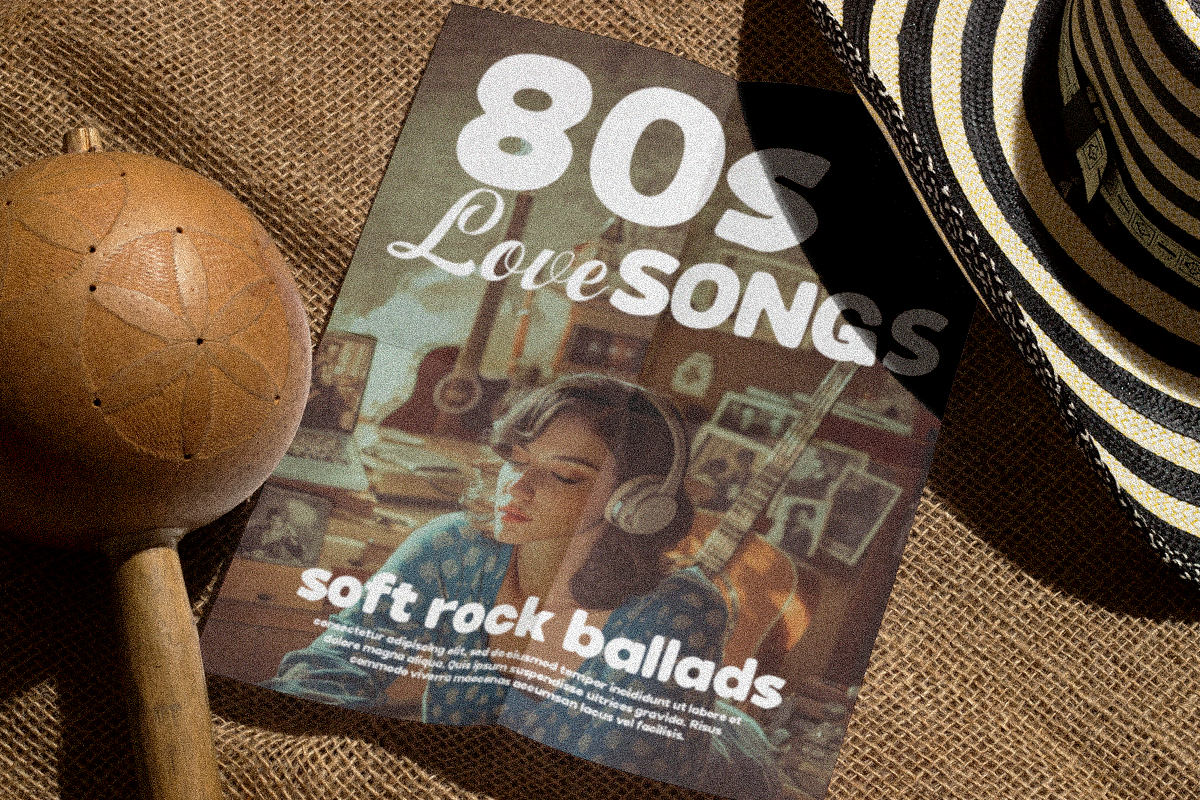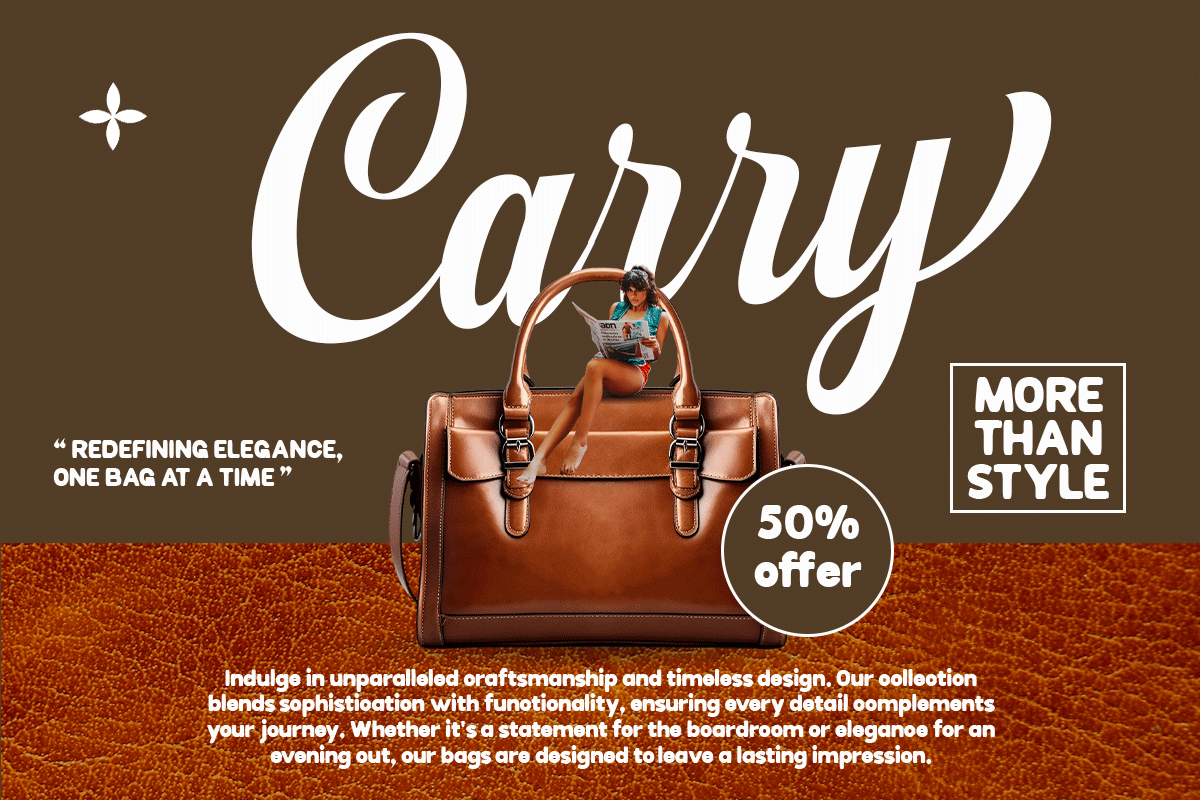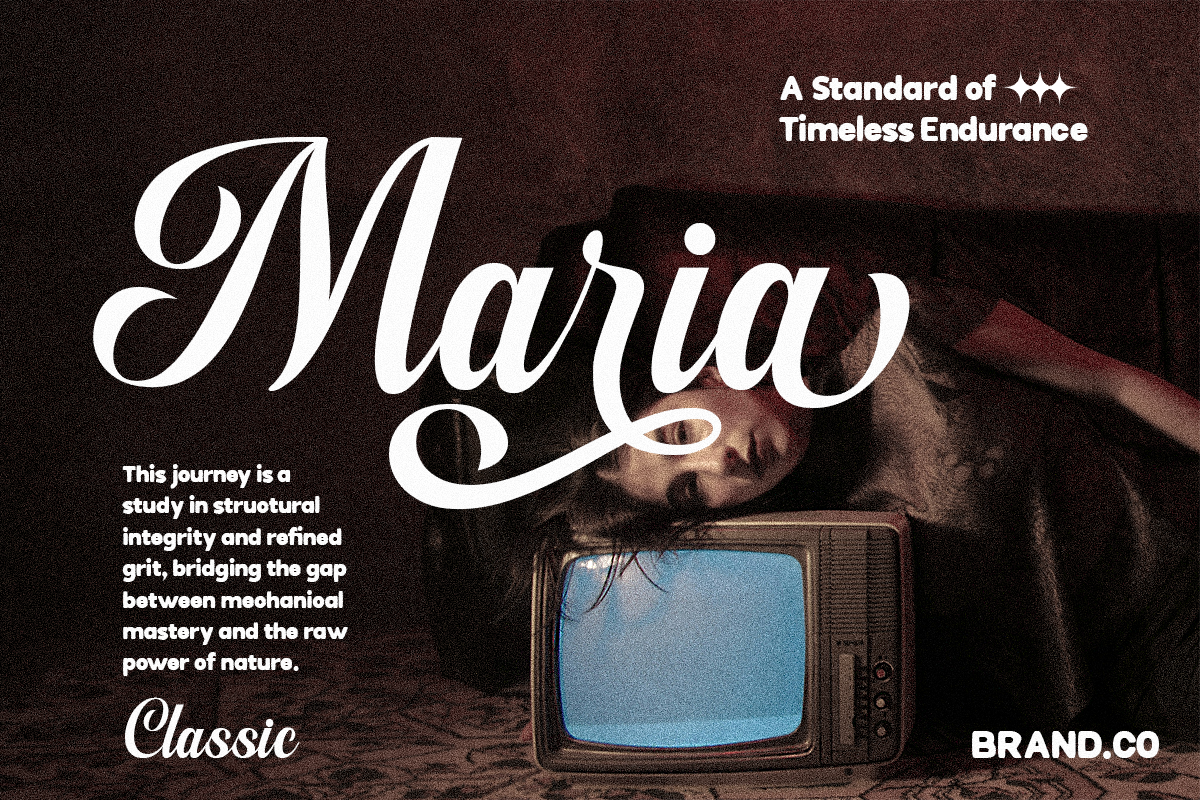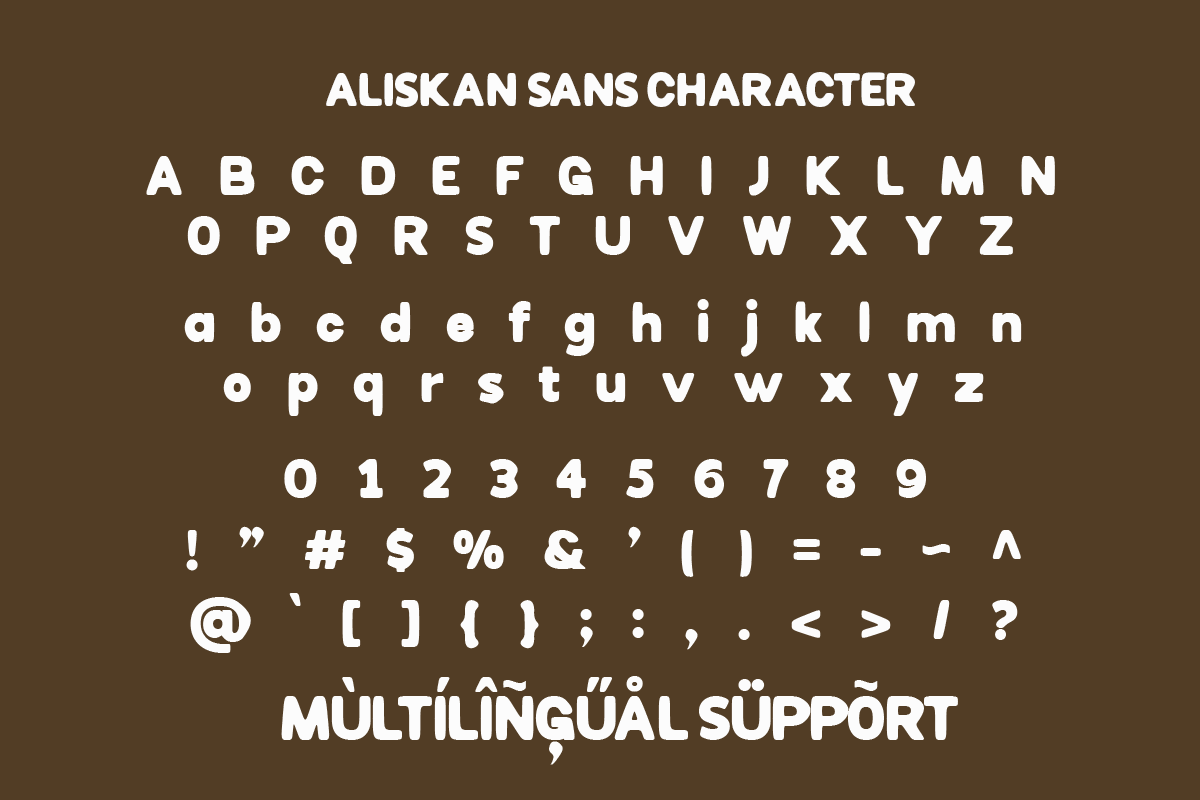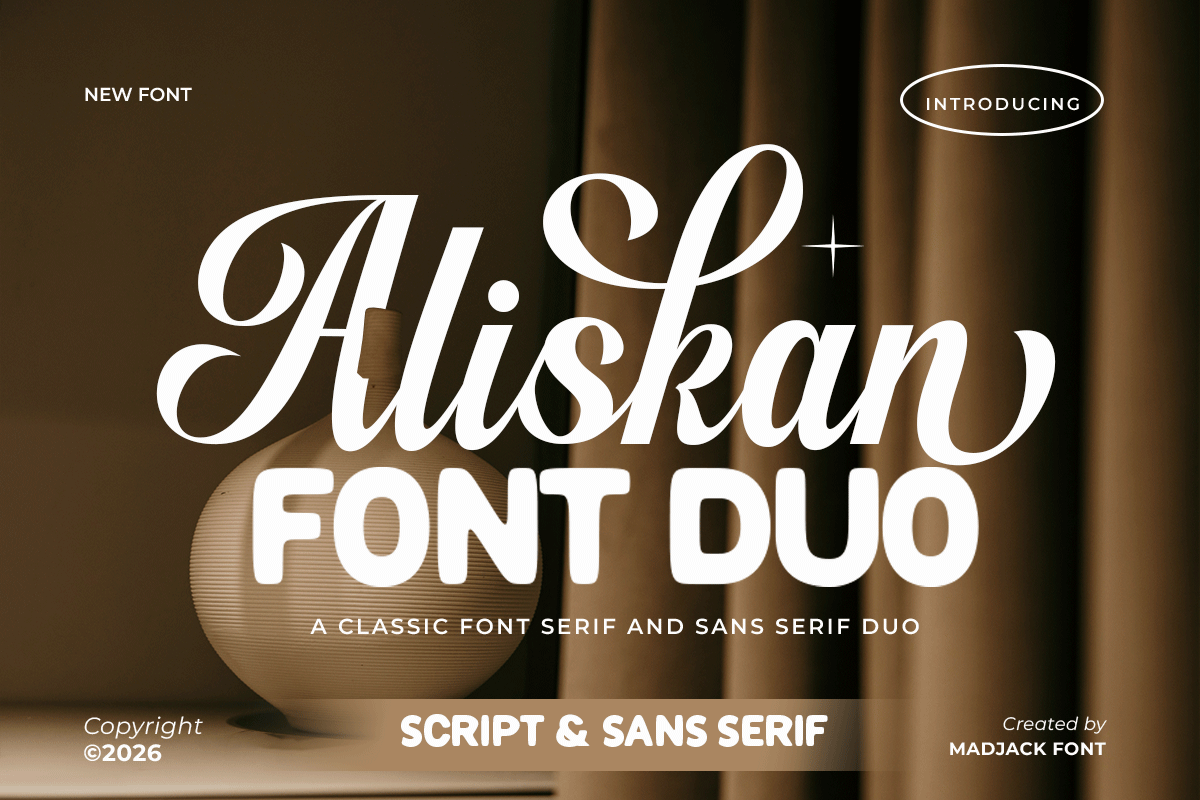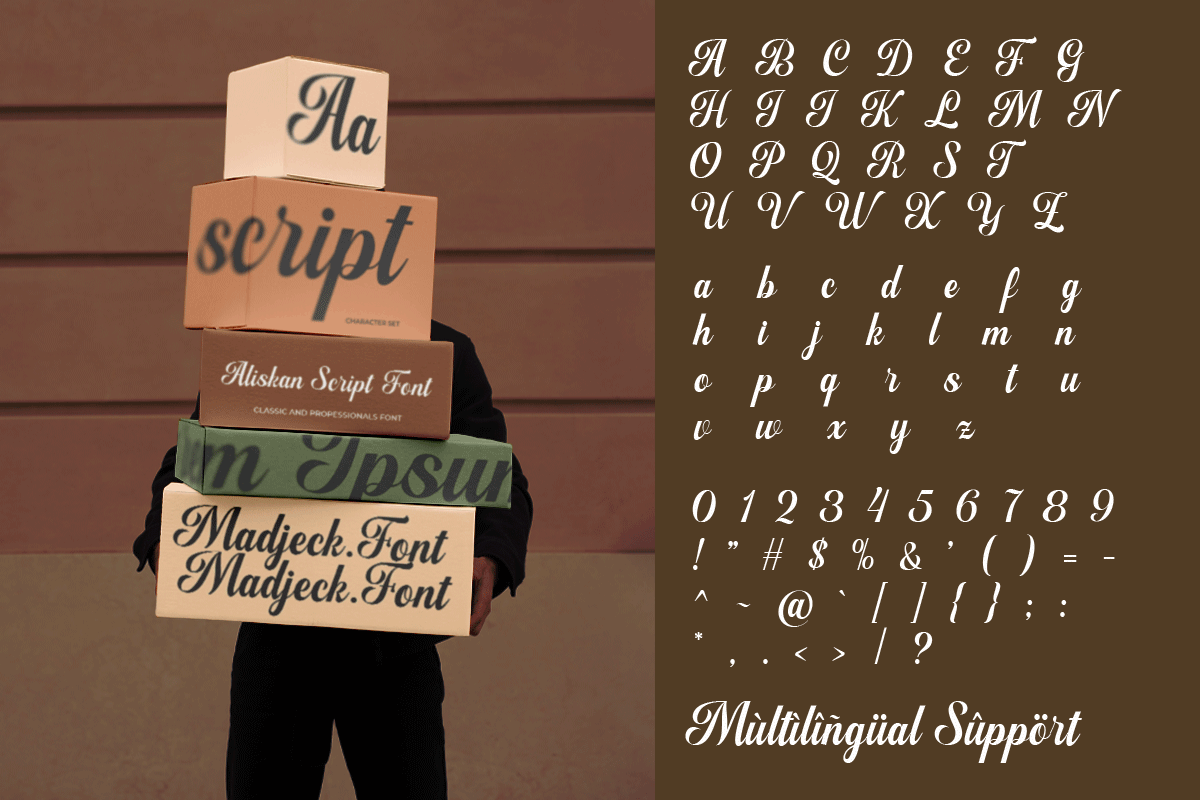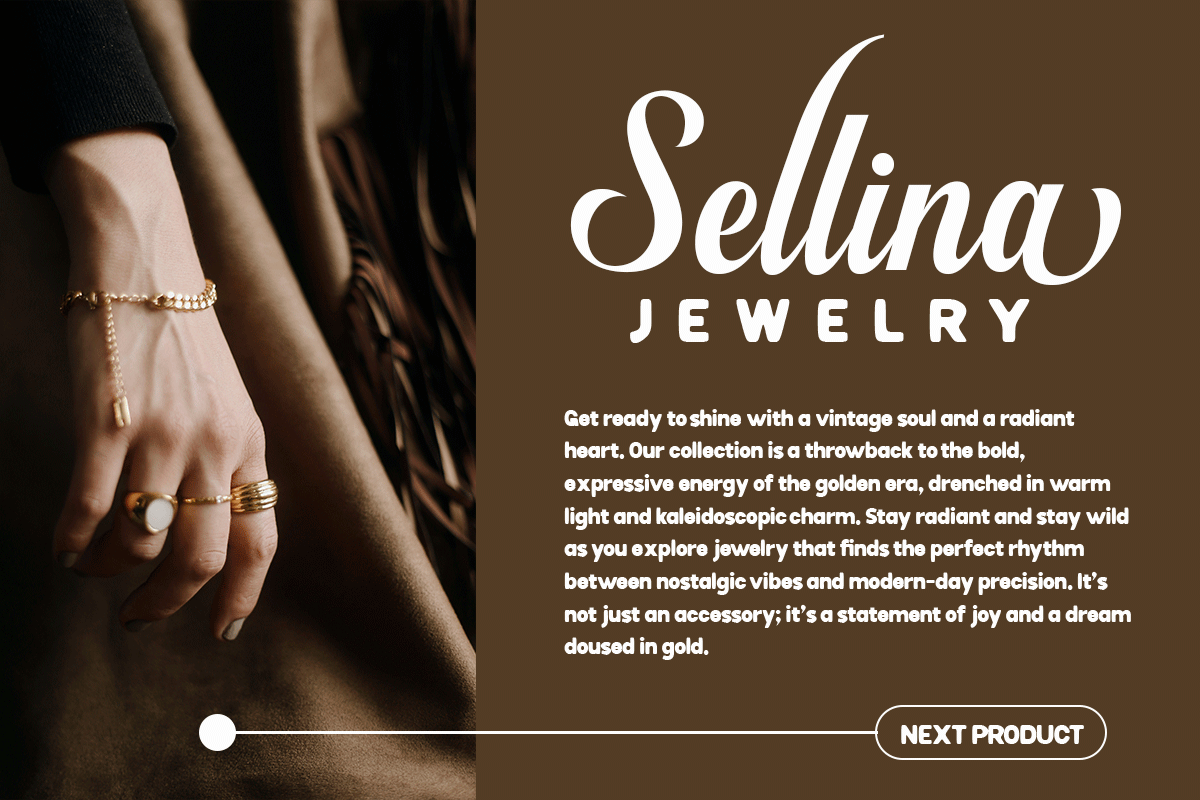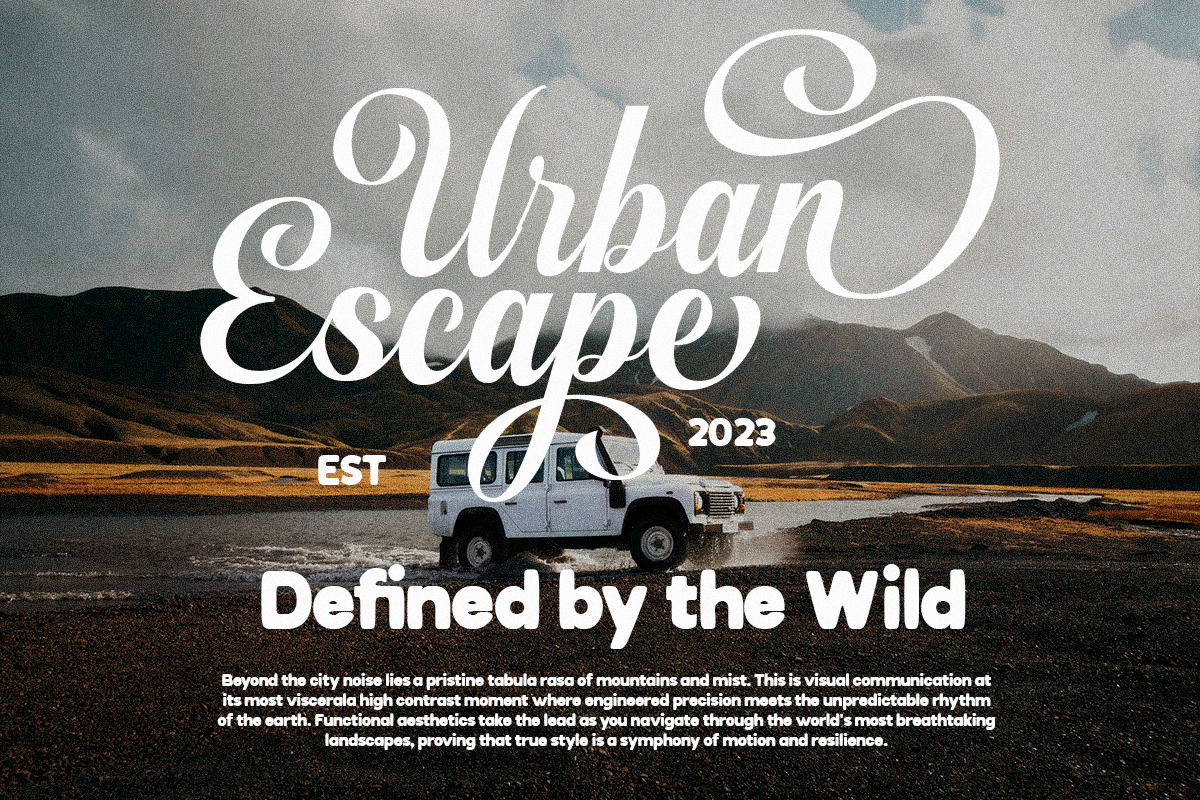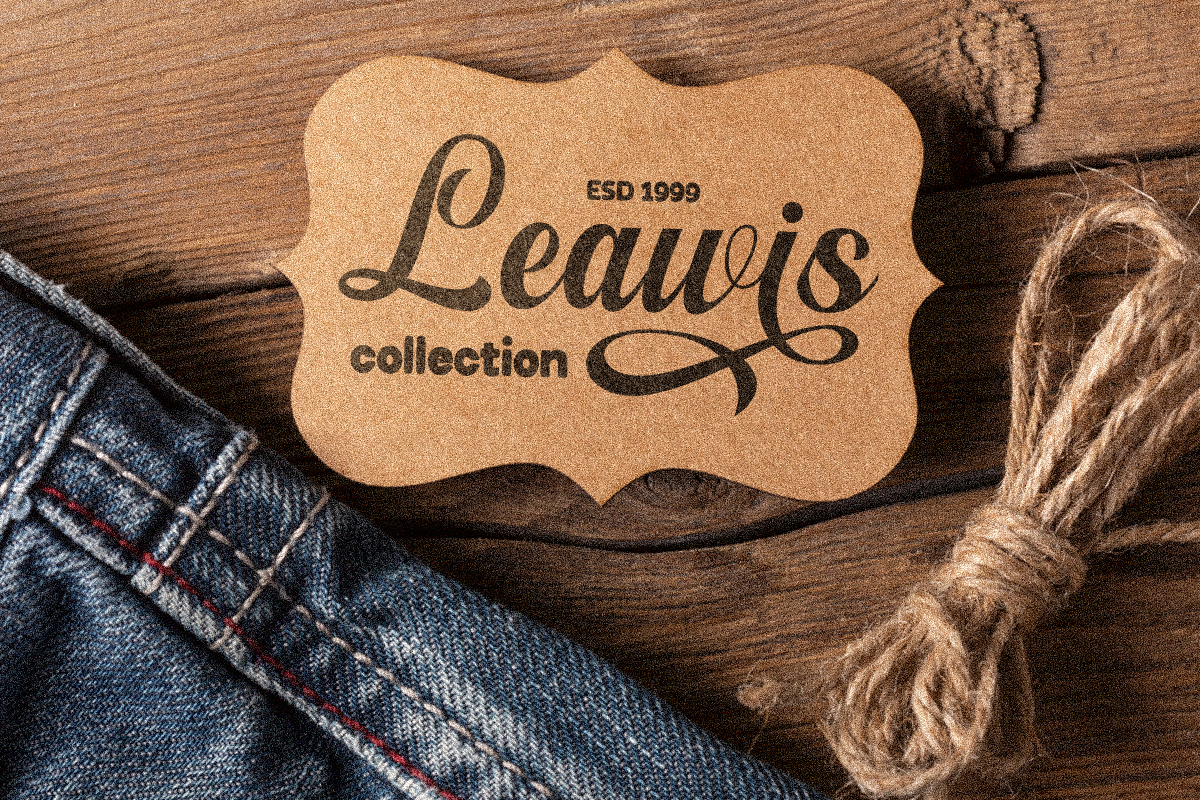
Aliskan Font Duo
Aliskan Font Duo is a beautiful combination of elegant letterforms and a modern sans serif style, designed to bring timeless sophistication to your creative projects. With subtle curves, stylish ligatures, and a bold, clean companion font, Lestina strikes the perfect balance between classic beauty and contemporary charm.
Ideal for branding, logos, wedding invitations, packaging, fashion editorials, social media, and luxury design projects, Aliskan Font Duo delivers a classy and versatile look that stands out effortlessly.